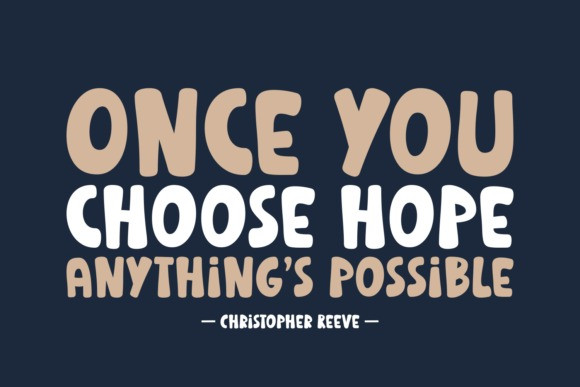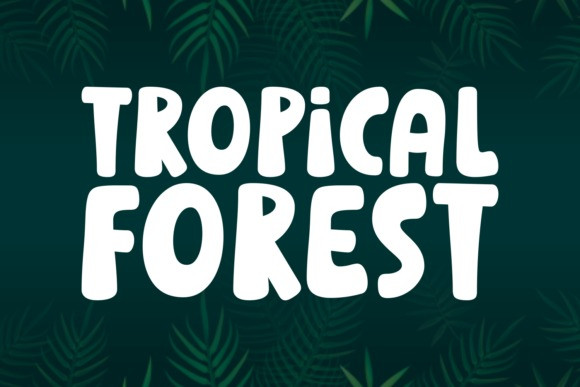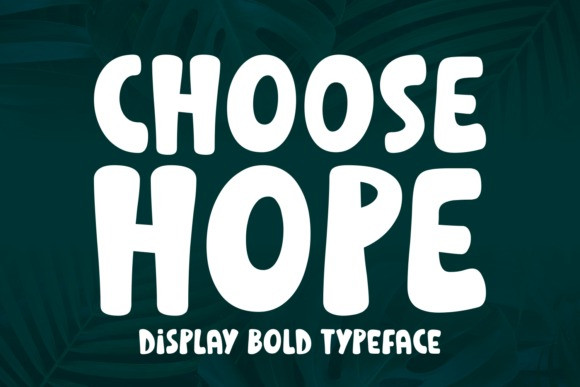
Choose Hope Font
Choose Hope Font is a whimsical and fun display font. No matter the topic, this font will be an incredible asset to your fonts’ library, as it has the potential to elevate any creation.